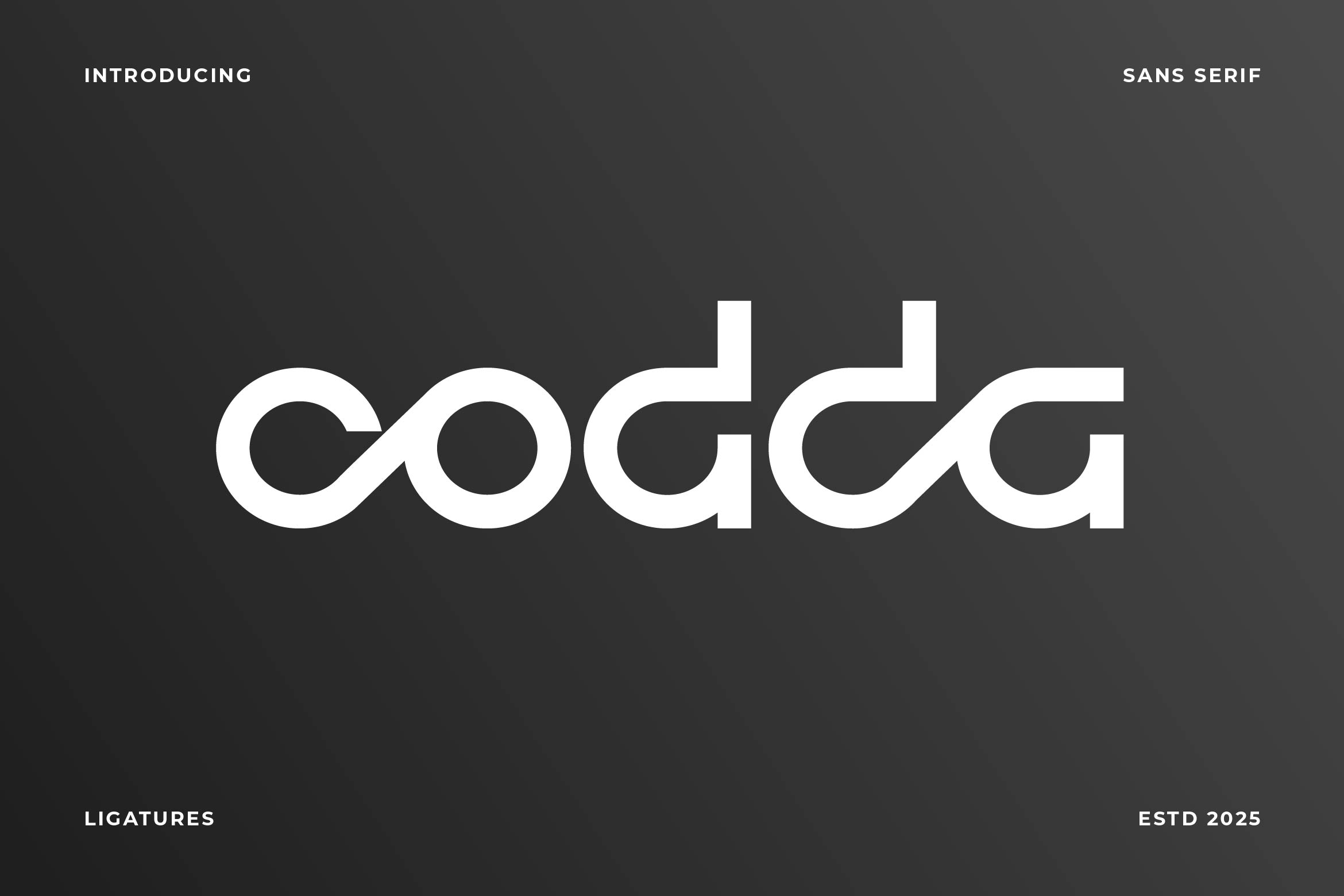
- Codda Versatile Sans Serif Logo Font
Codda is a clean and versatile sans serif font designed to create bold and memorable logos. With its geometric structure, sharp lines, and contemporary minimalism, Codda is perfect for crafting professional wordmarks, branding systems, packaging, website headers, and social media graphics that demand clarity and sophistication.
Its sleek proportions ensure excellent readability while delivering a premium, modern look across various industries such as tech, fashion, corporate, and creative agencies. Codda’s simplicity allows it to adapt seamlessly to different design contexts while maintaining a distinctive personality.
The font includes uppercase and lowercase letters, numerals, punctuation, multilingual support, and stylistic alternates for enhanced customization and creative freedom.
Build a strong and timeless brand presence with Codda — the logo sans serif font that blends precision, simplicity, and modern elegance.
- Ligature